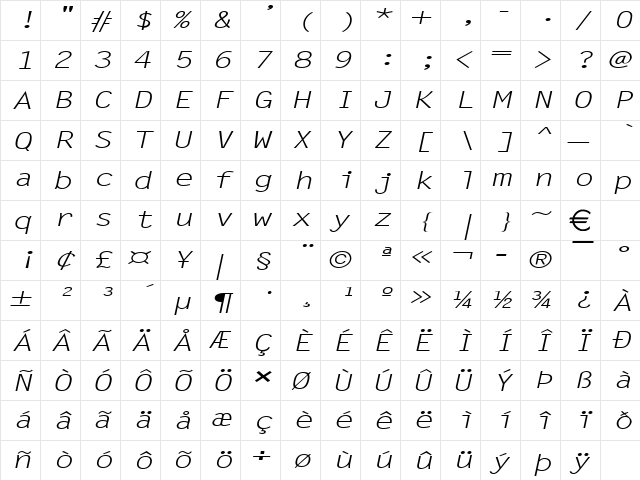
LechterExtended Italic Font Preview
LechterExtended Italic
LechterExtended Italic Font Details
Design Context for LechterExtended Typeface
LechterExtended is a composed and adaptable typeface that performs quietly and consistently across a wide range of design contexts. The slanted form adds forward momentum and visual energy.